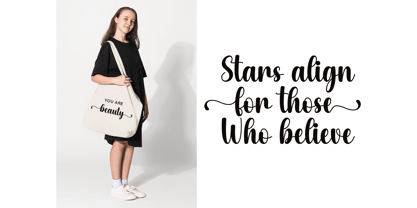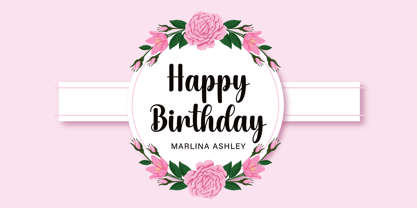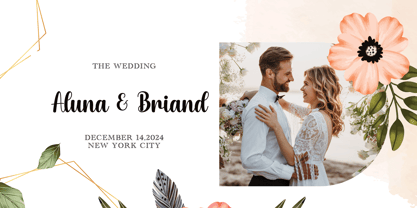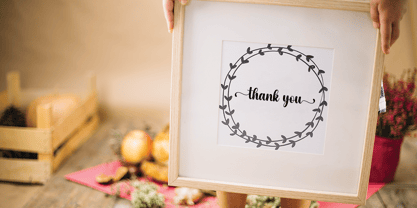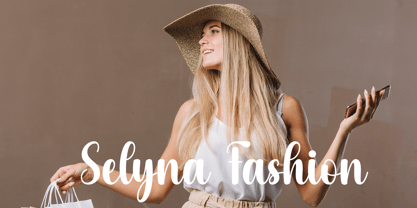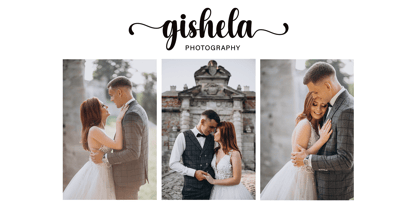
Beach Angel
Beach Angel is a stylish and incredibly elegant handwritten font. It looks stunning on wedding invitations, thank you cards, quotes, greeting cards, logos, business cards, and every other design which needs a handwritten touch.